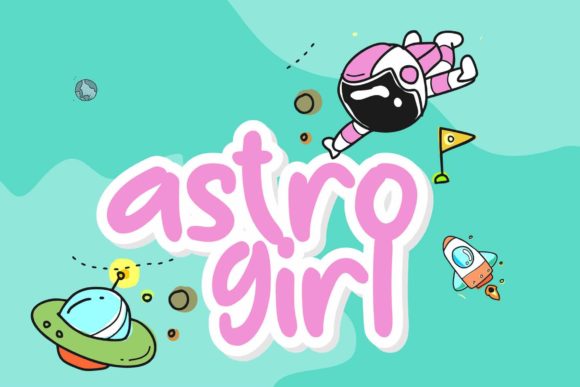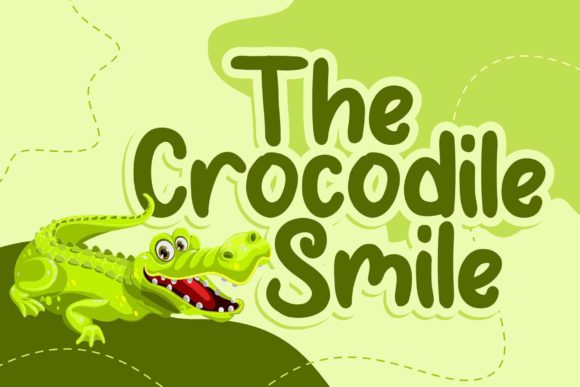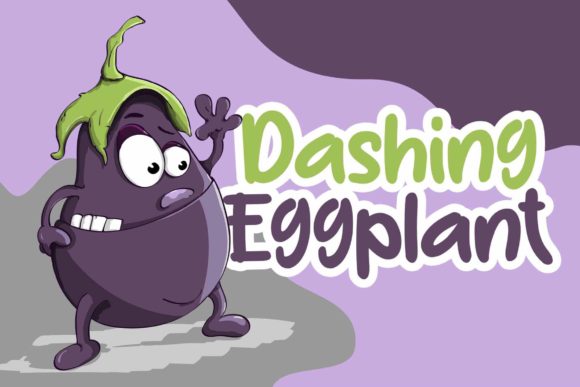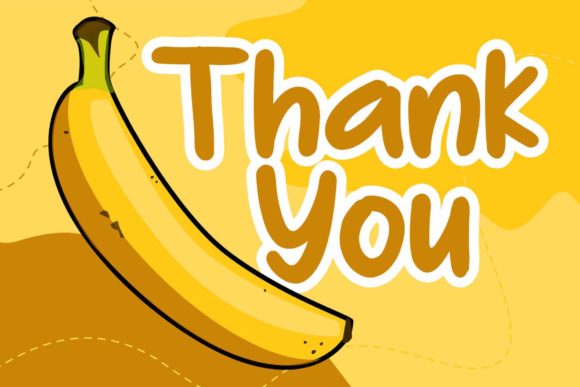
Introducing Crunchy Orange: The Fun and Unique Display Font
Are you tired of using the same old fonts for your design projects? Look no further than Crunchy Orange, the eye-catching display font that’s sure to take your creative ideas to the next level. With its fun, unique, and authentic style, Crunchy Orange is the perfect choice for designers and crafters looking to add a pop of personality to their work.
The Definition of Fun, Uniqueness, and Authenticity
Crunchy Orange is more than just a font – it’s an experience. Its bold and playful design is sure to grab attention and leave a lasting impression. Whether you’re working on a branding project, designing wedding invitations, or creating social media graphics, Crunchy Orange is the perfect choice for anyone looking to add a touch of whimsy and fun to their design.
Take Your Design Projects to the Highest Level
With Crunchy Orange, you can take your design projects to new heights. This versatile font is perfect for a wide range of applications, including:
• Branding: Create a bold and memorable brand identity with Crunchy Orange.
• Headings: Add a touch of personality to your headings and titles.
• Wedding Designs: Make your wedding invitations, signs, and decorations truly special with Crunchy Orange.
• Invitations: Create eye-catching invitations for parties, events, and more.
• Signatures: Add a personal touch to your email signatures and social media profiles.
• Logos: Create a unique and memorable logo for your business or brand.
• Labels: Add a pop of personality to your product labels and packaging.
Why Choose Crunchy Orange?
So why choose Crunchy Orange over other fonts? Here are just a few reasons:
• Unique Style: Crunchy Orange has a one-of-a-kind design that’s sure to stand out.
• Versatility: This font is perfect for a wide range of applications, from branding to wedding designs.
• Easy to Read: Despite its bold and playful design, Crunchy Orange is easy to read and understand.
• High-Quality: Crunchy Orange is a high-quality font that’s designed to look great on any device or platform.
Tips for Using Crunchy Orange
Here are a few tips for getting the most out of Crunchy Orange:
• Use it as a Headline Font: Crunchy Orange is perfect for headlines and titles.
• Pair it with Other Fonts: Try pairing Crunchy Orange with other fonts for a unique and interesting look.
• Experiment with Colors: Don’t be afraid to try out different colors and color combinations with Crunchy Orange.
• Use it for Emphasis: Use Crunchy Orange to add emphasis to important text or to draw attention to a particular element.
Font Name Crunchy Orange Font
Author RT Studio
In conclusion, Crunchy Orange is a fun, unique, and authentic display font that’s perfect for designers and crafters looking to add a touch of personality to their work. With its bold and playful design, Crunchy Orange is sure to take your creative ideas to the next level. Whether you’re working on a branding project, designing wedding invitations, or creating social media graphics, Crunchy Orange is the perfect choice. So why wait? Try Crunchy Orange today and see the difference it can make!